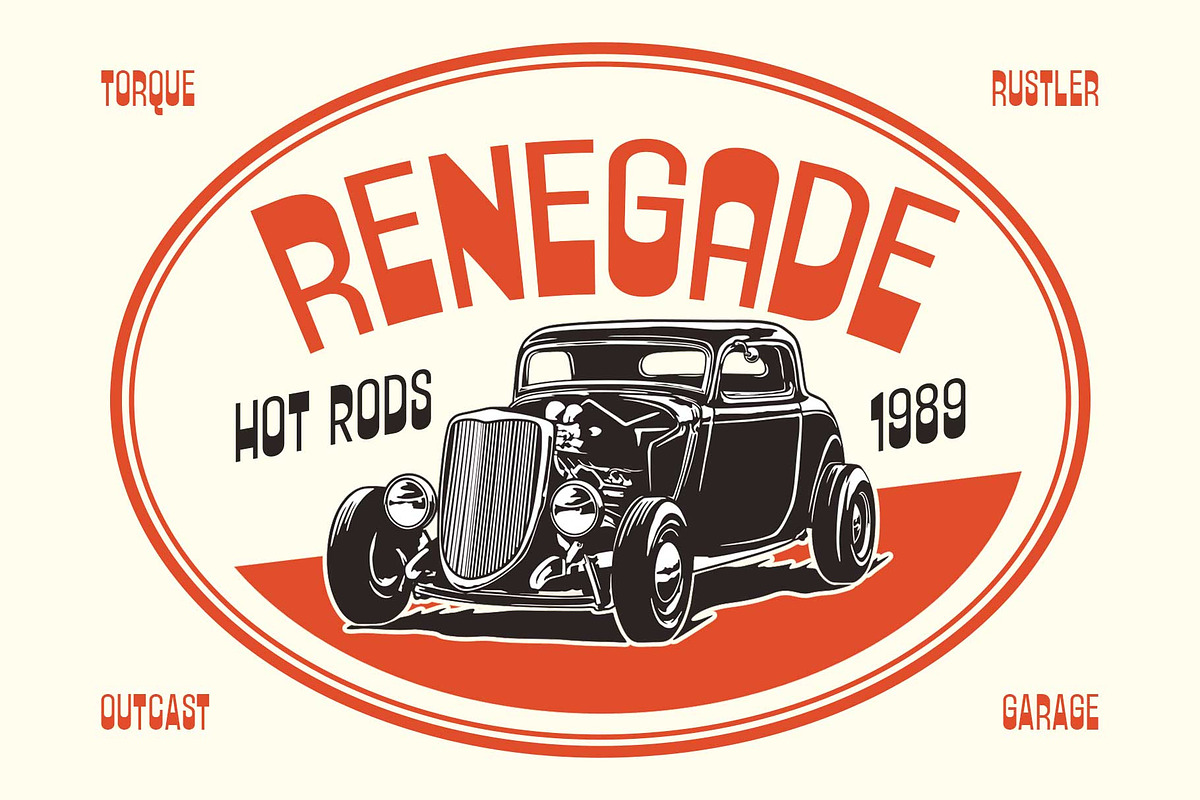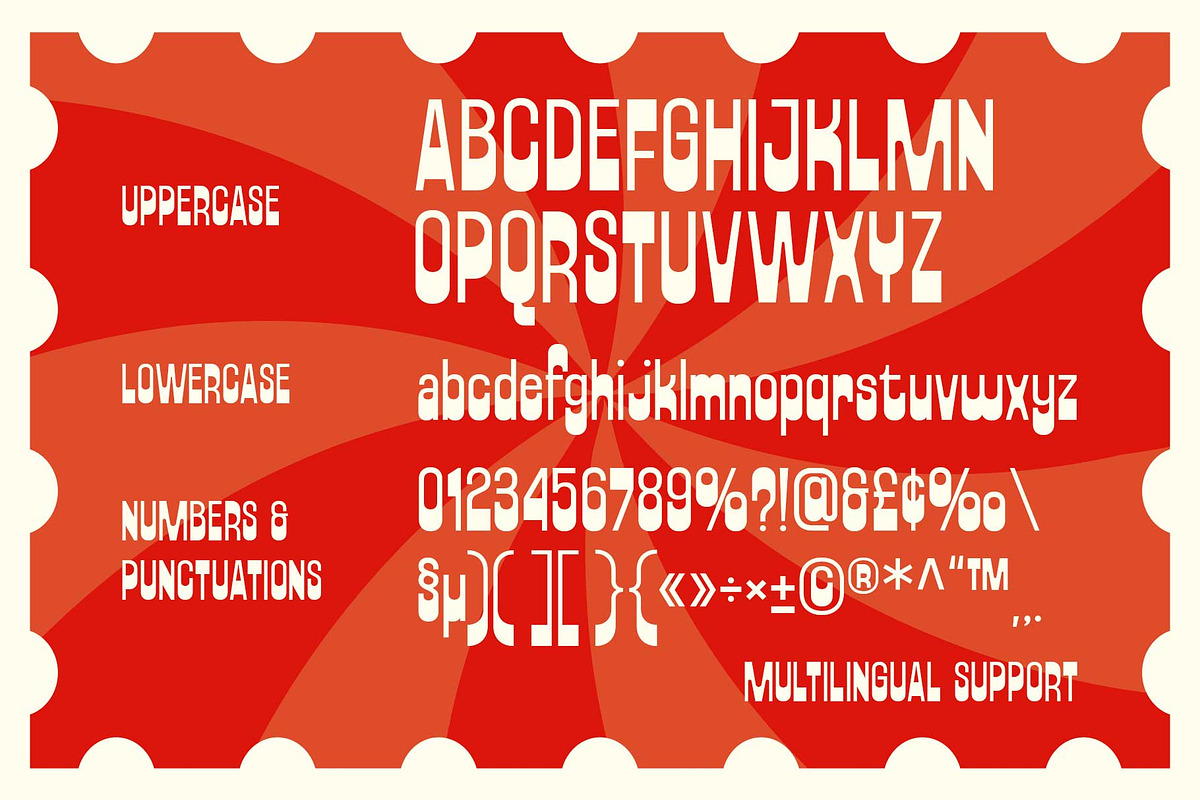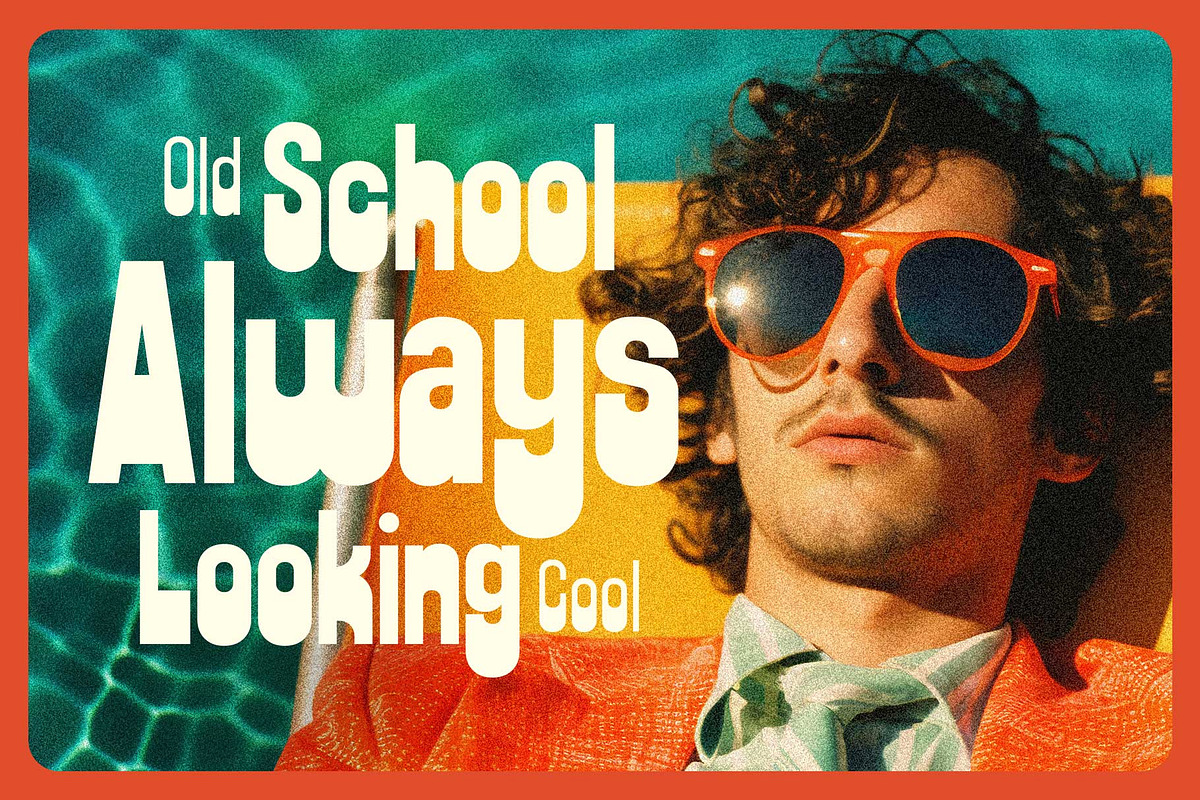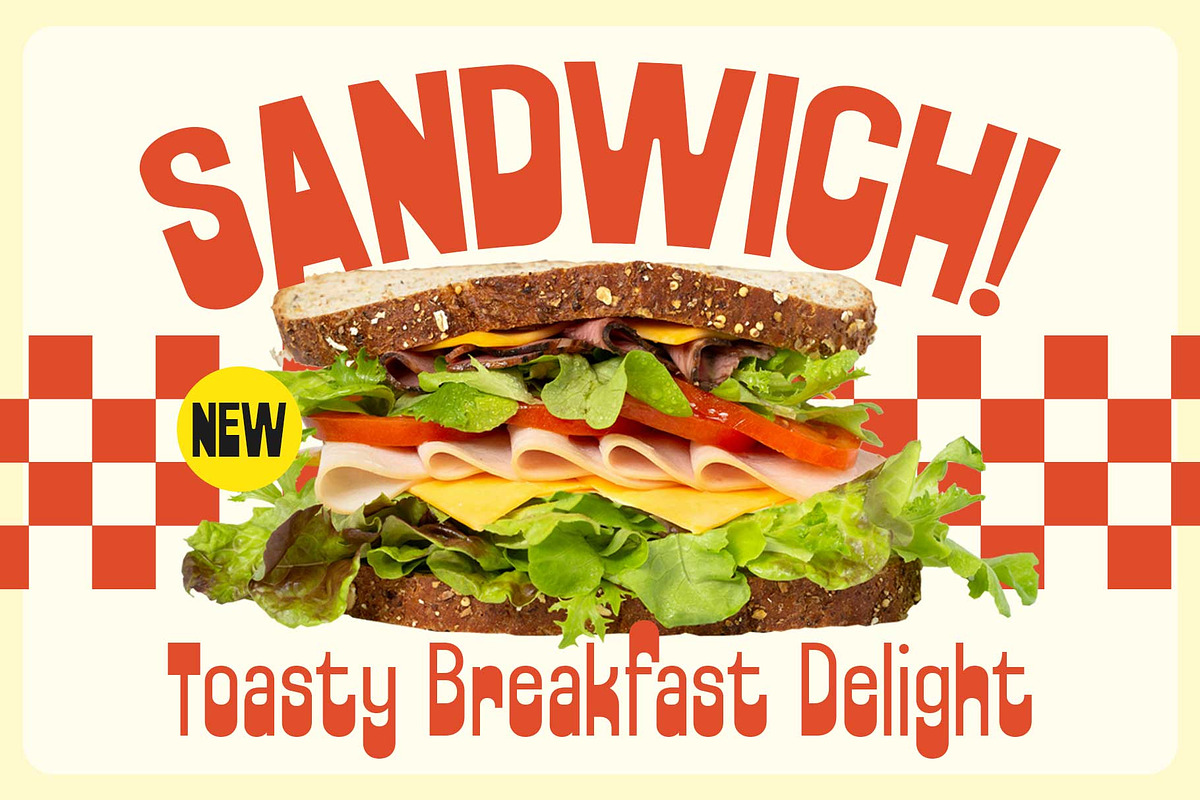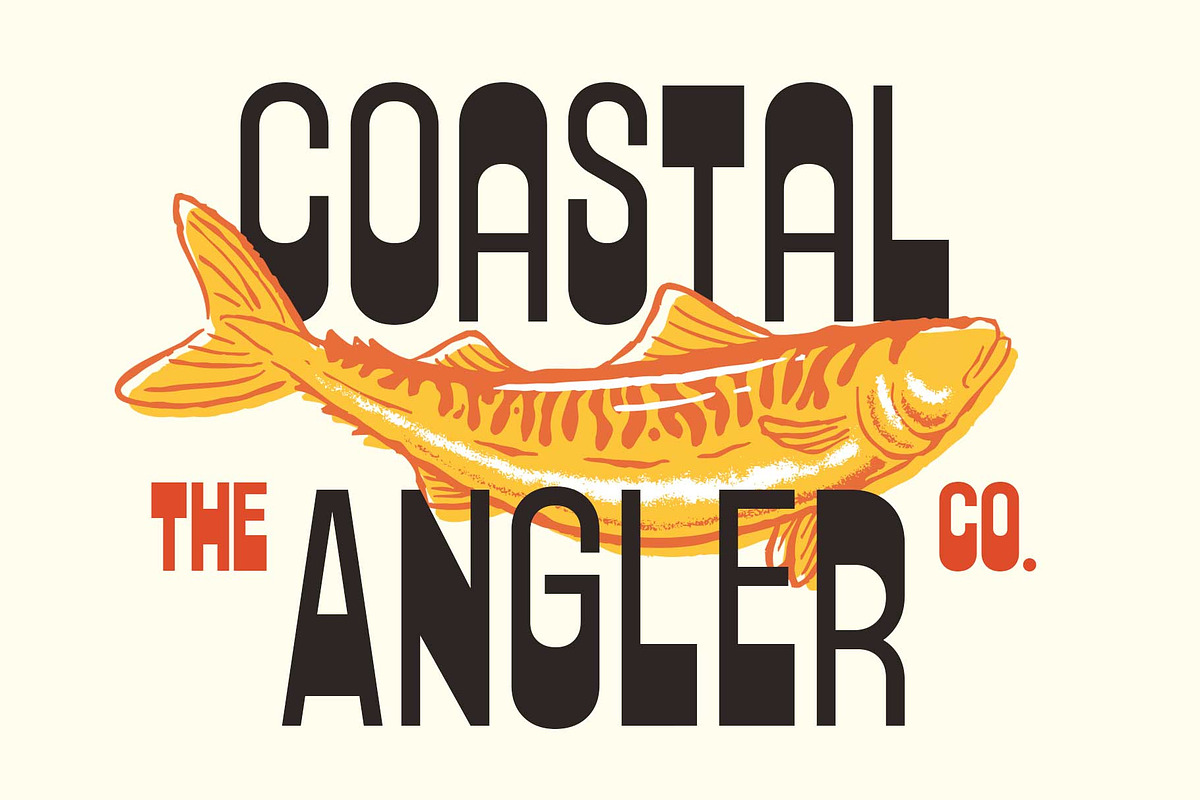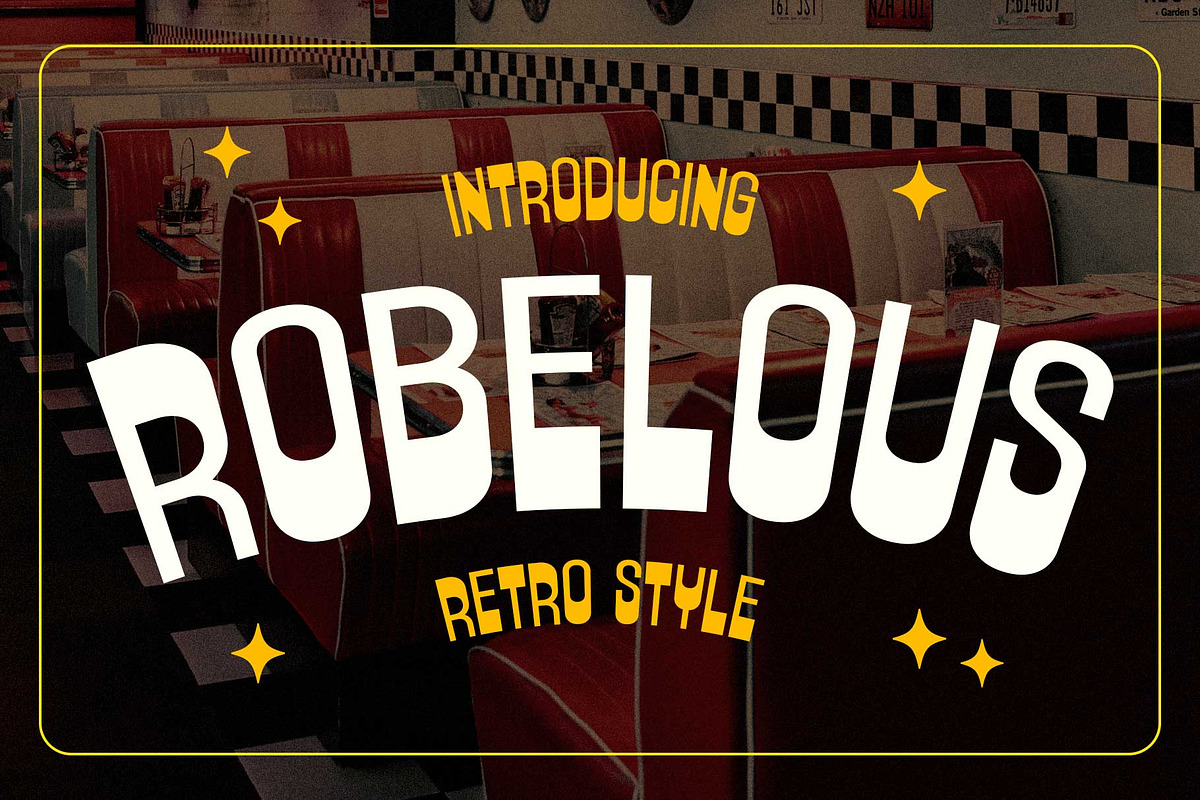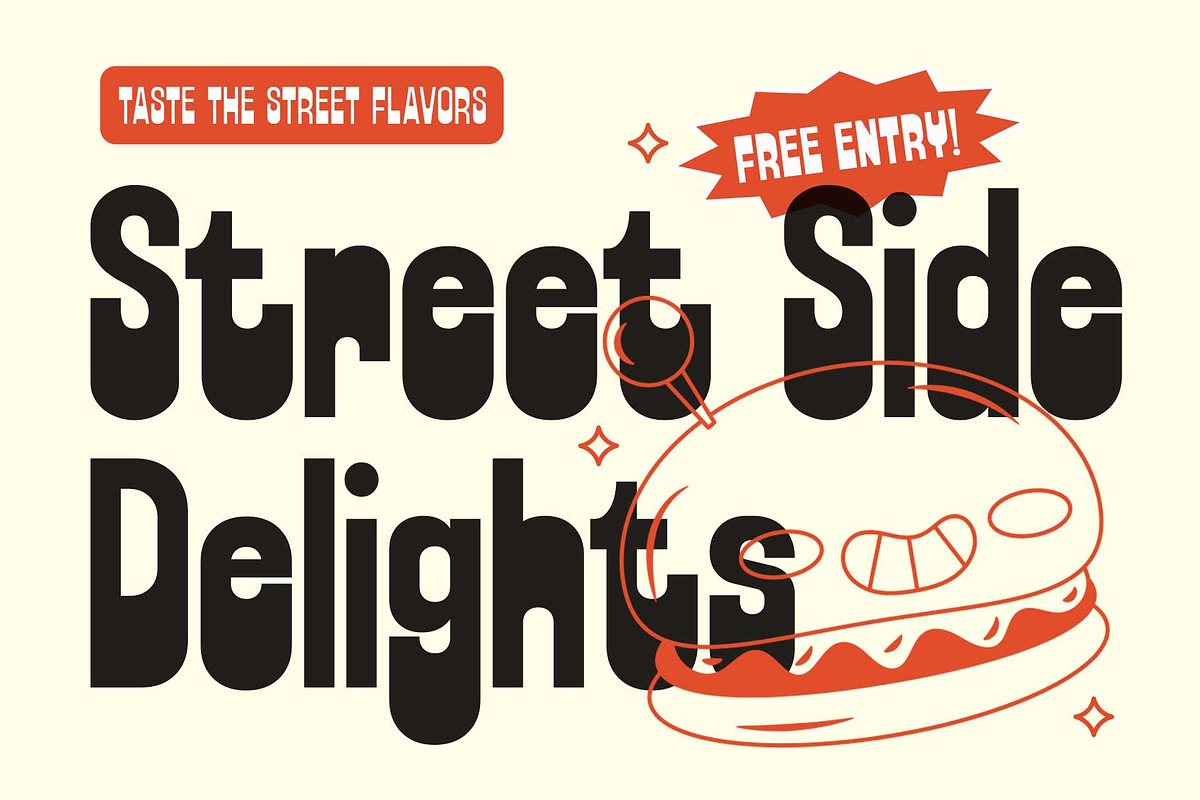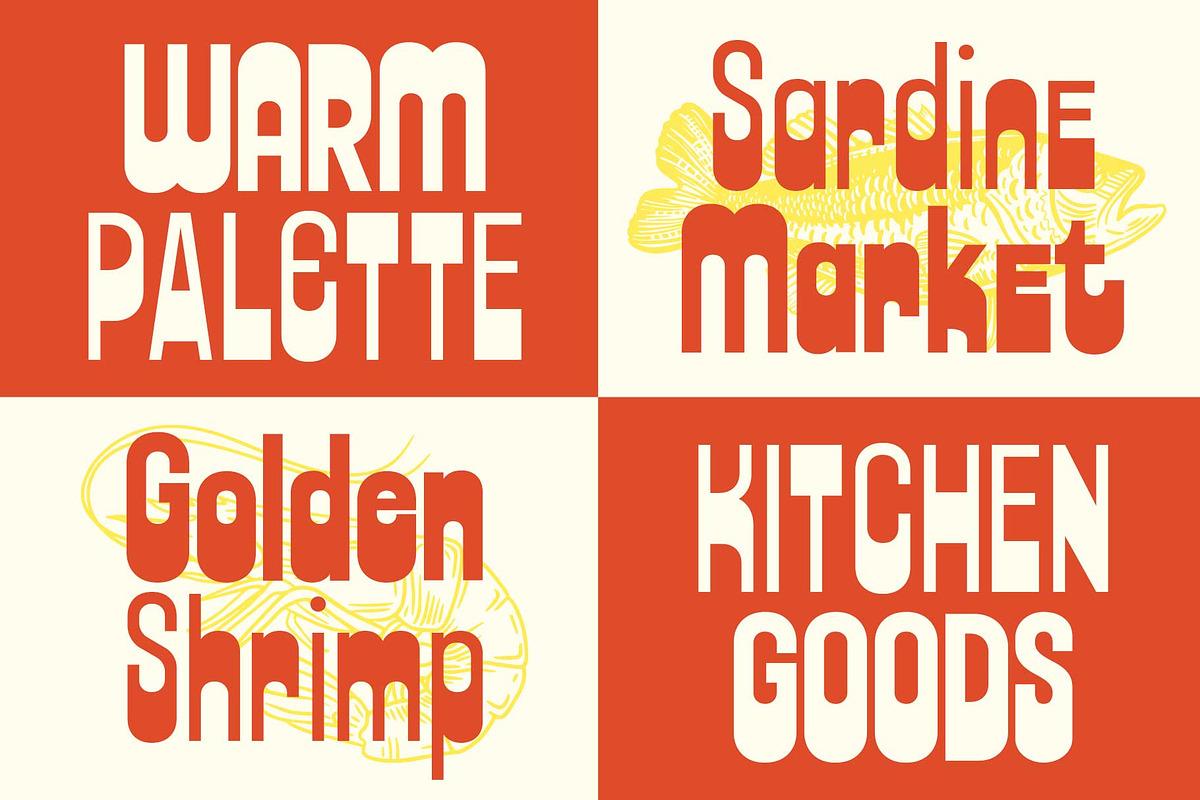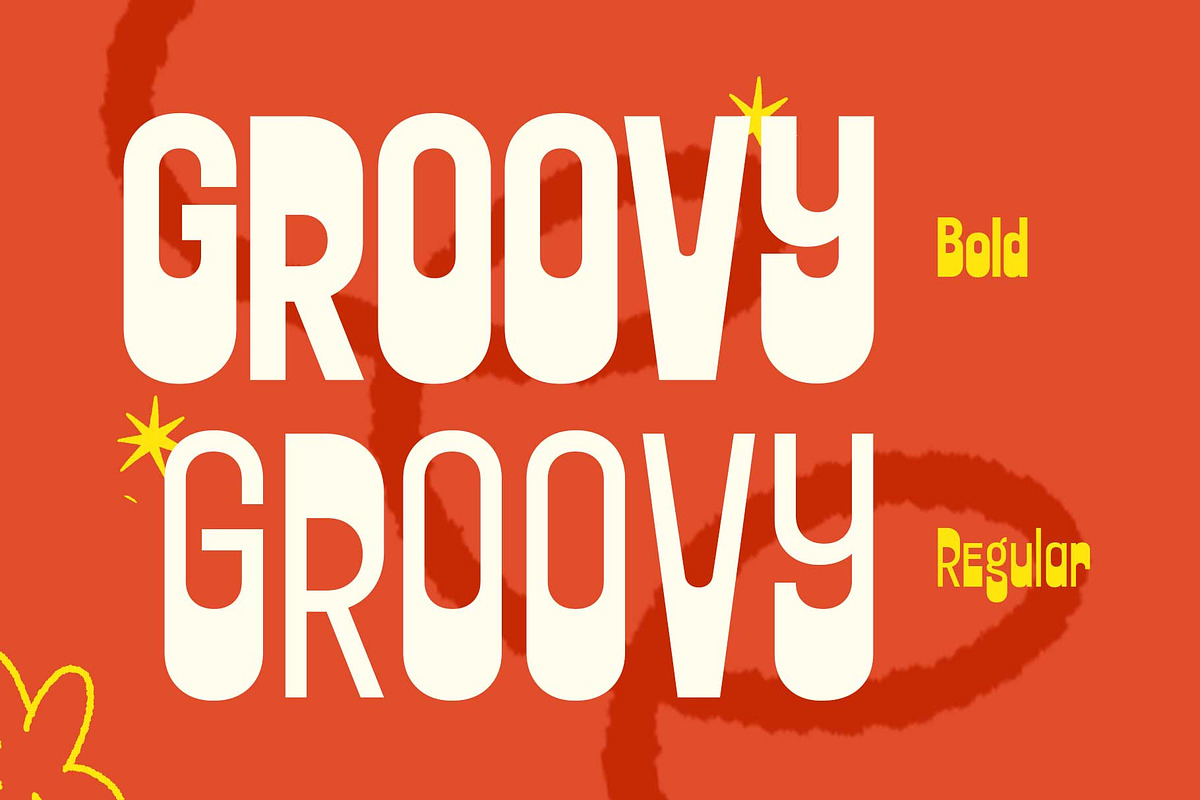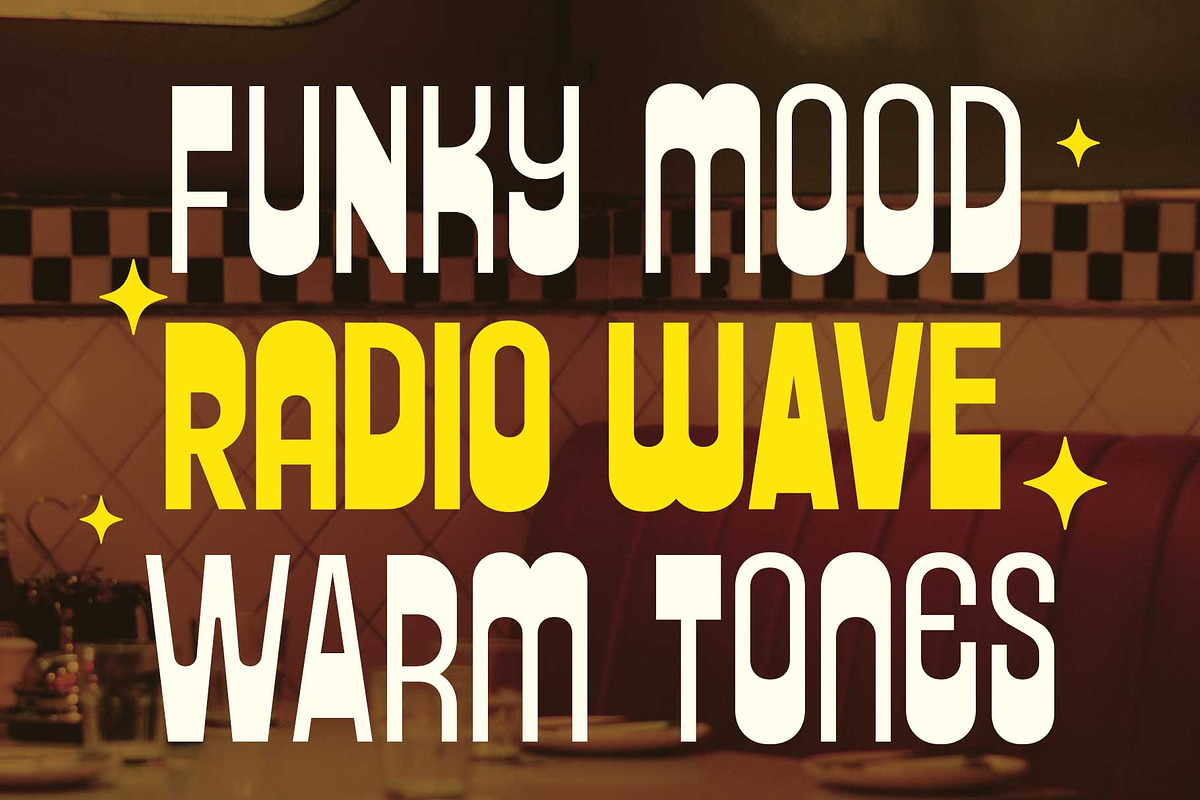
Robelous - Vintage Style
Robelous is a bold condensed display typeface with a strong vintage character, inspired by classic American diners, roadside signs, food packaging, hot rods, and old-school advertising. Its tall proportions and solid letterforms give it a confident presence, while the subtle quirks in its characters bring a more human, handcrafted feel to the overall design. Available in Regular & Bold, Robelous gives you flexibility to create different levels of impact across your designs.
Robelous works beautifully for diner and restaurant branding, food packaging, posters, signage, apparel, badges, logos, editorial headlines, hot rod graphics, and retro-inspired advertising. It has the kind of character that can make a simple word feel like it came straight from an old roadside sign—familiar, bold, and full of personality.
Regular & Bold
Lowercase
Symbols
Accented characters
Stylistic alternates